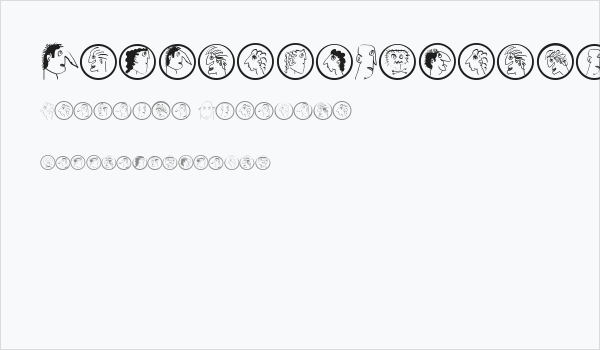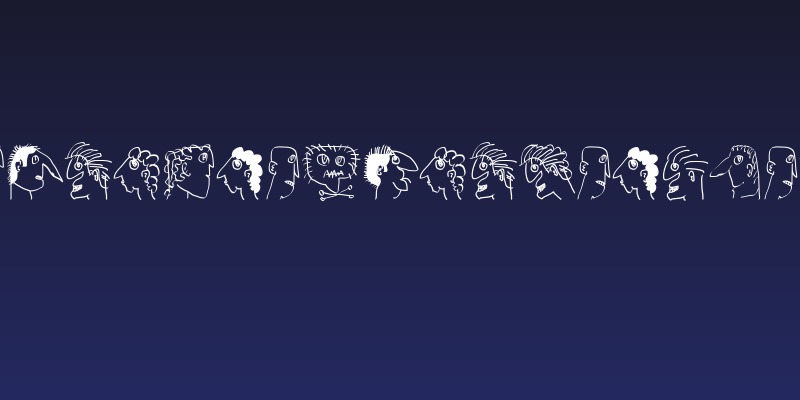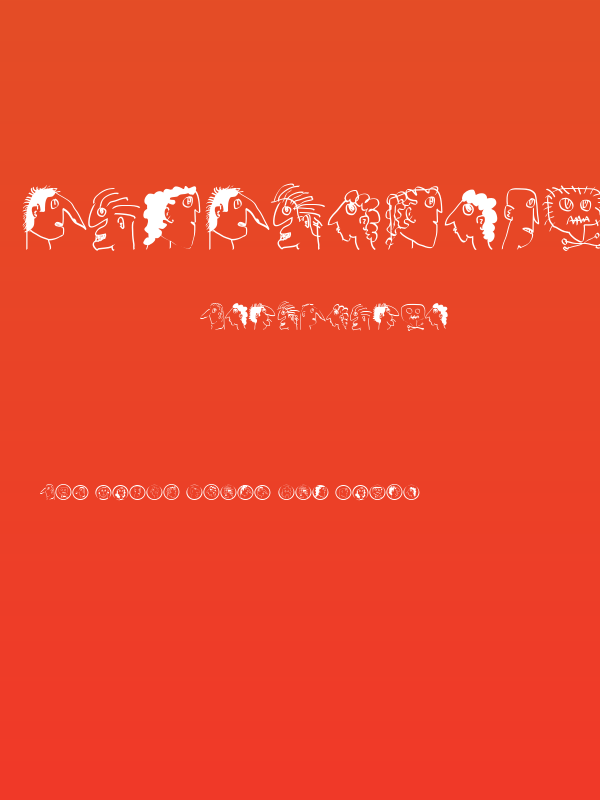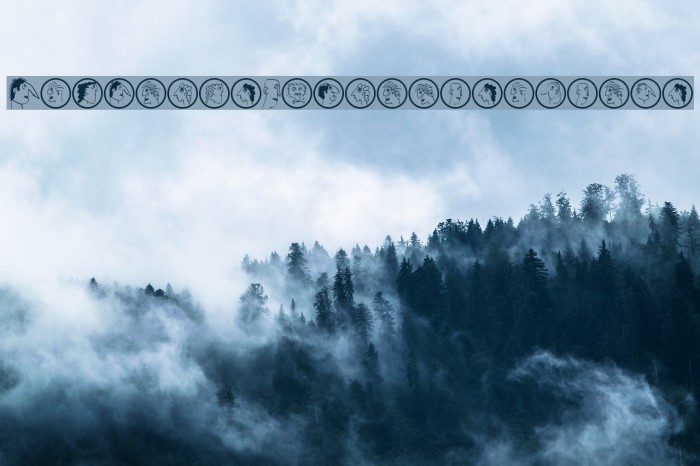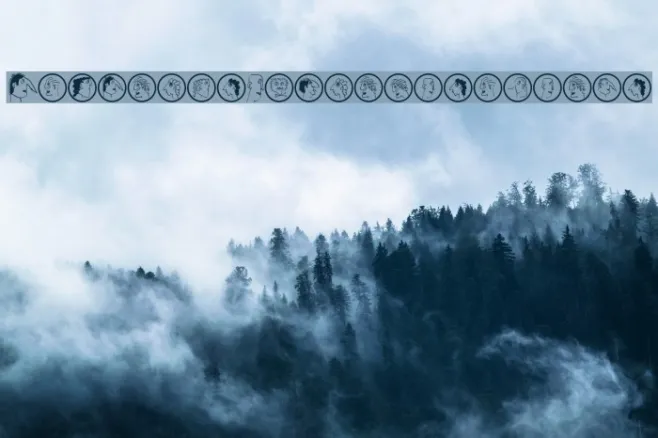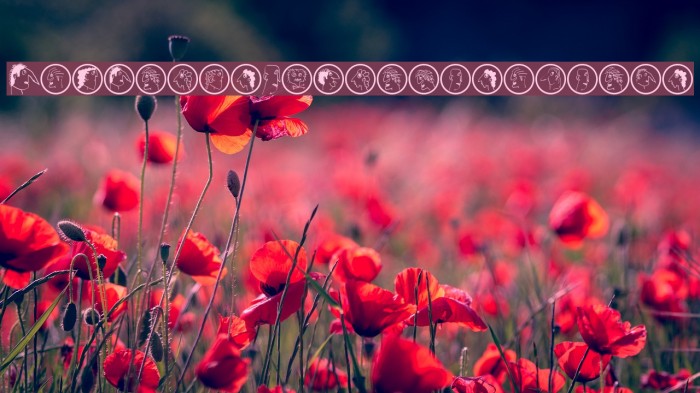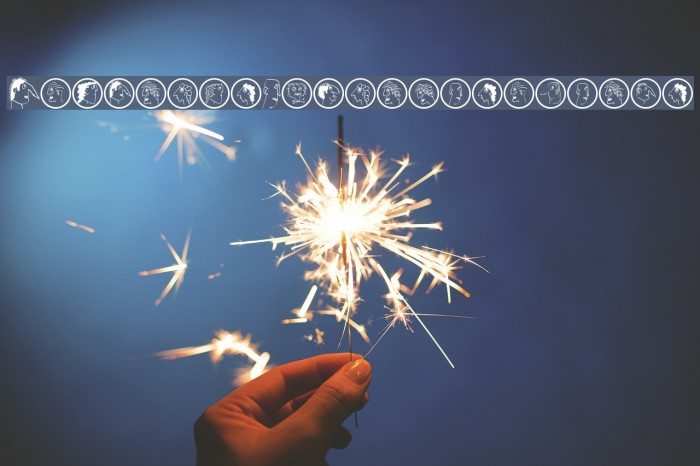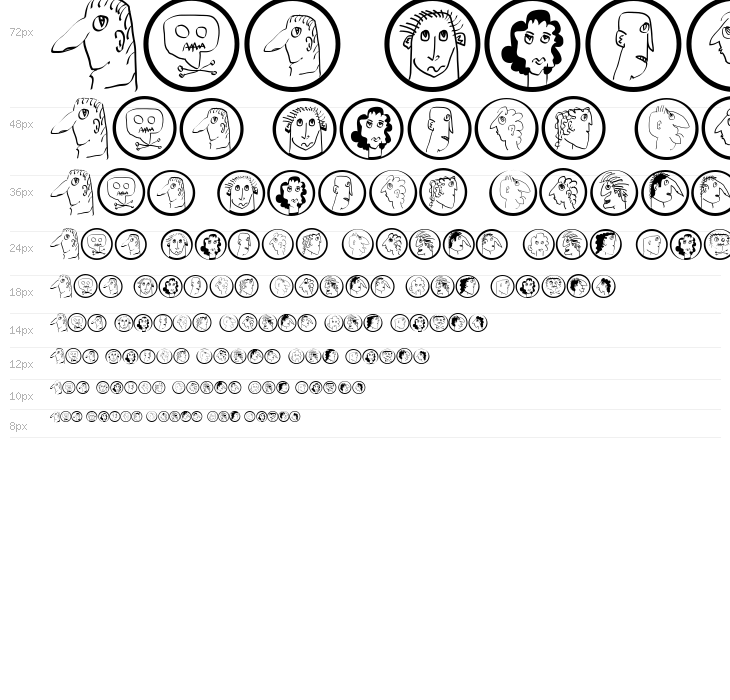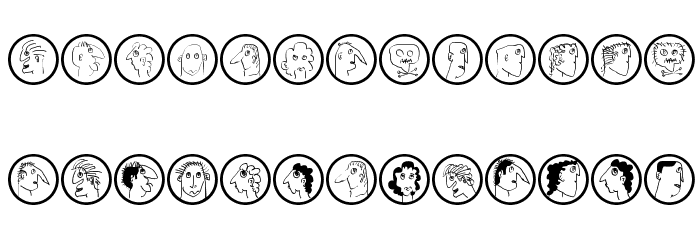
WaxworksImprovisations Font
WaxworksImprovisations Description
A highly decorative and whimsical font composed of hand-drawn caricature faces, each character represented by a unique illustrated profile or portrait, some enclosed in circles. The style is playful, sketch-like, and expressive, with irregular line work and varied facial features.
| Overall Style | Whimsical, Artistic, Playful, Decorative |
| Use Case | Logos, Headlines, Posters, Invitations, Artistic projects |
| Proposed Projects | Children’s books, comic titles, party invitations, art posters, creative branding, album covers. |